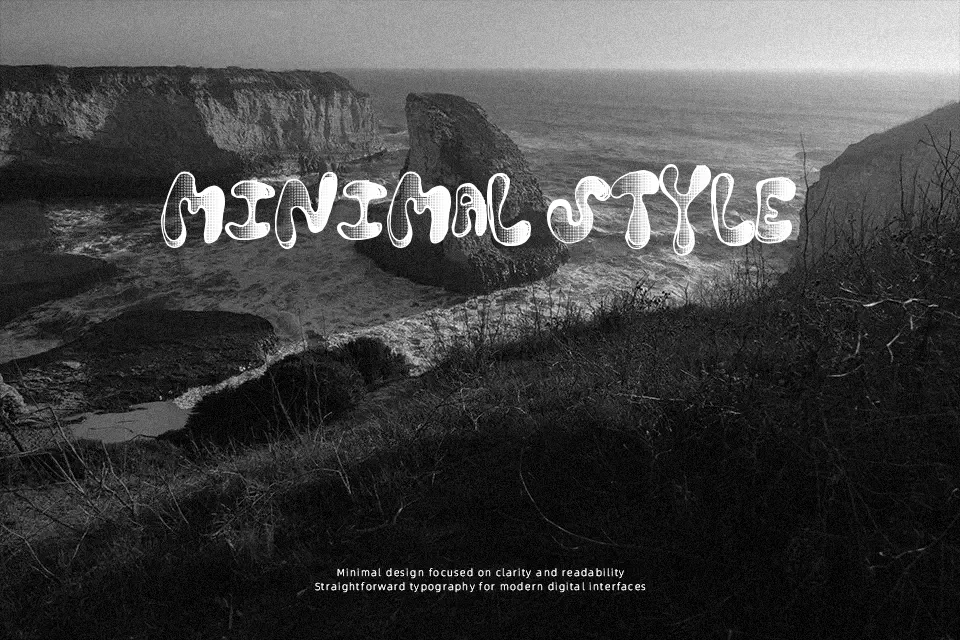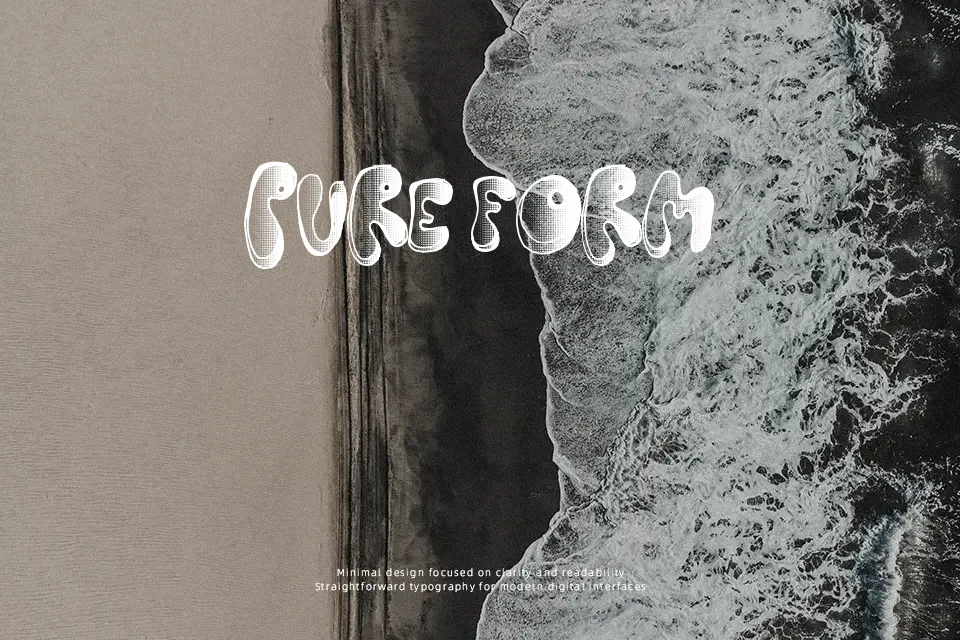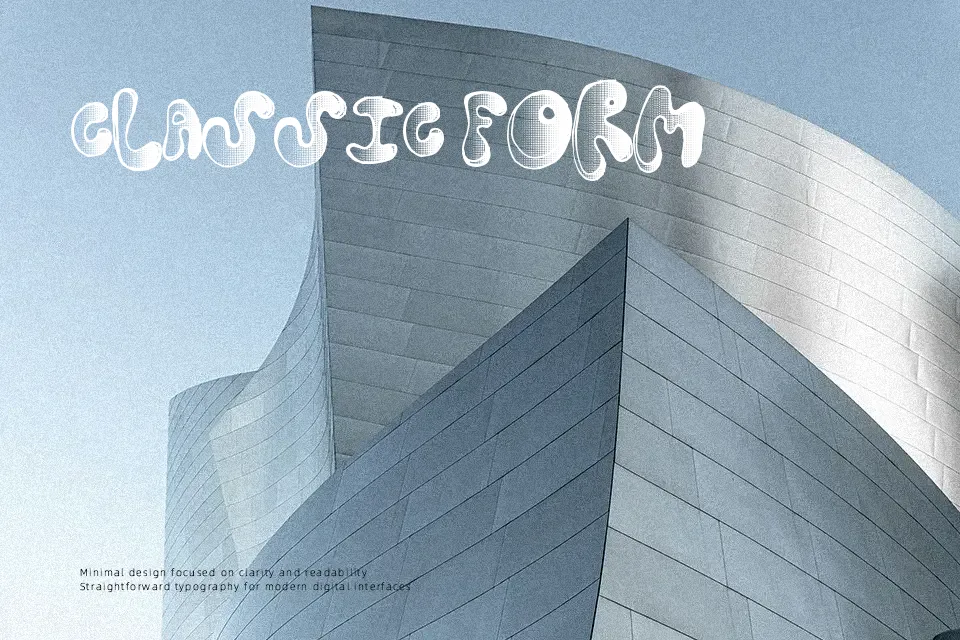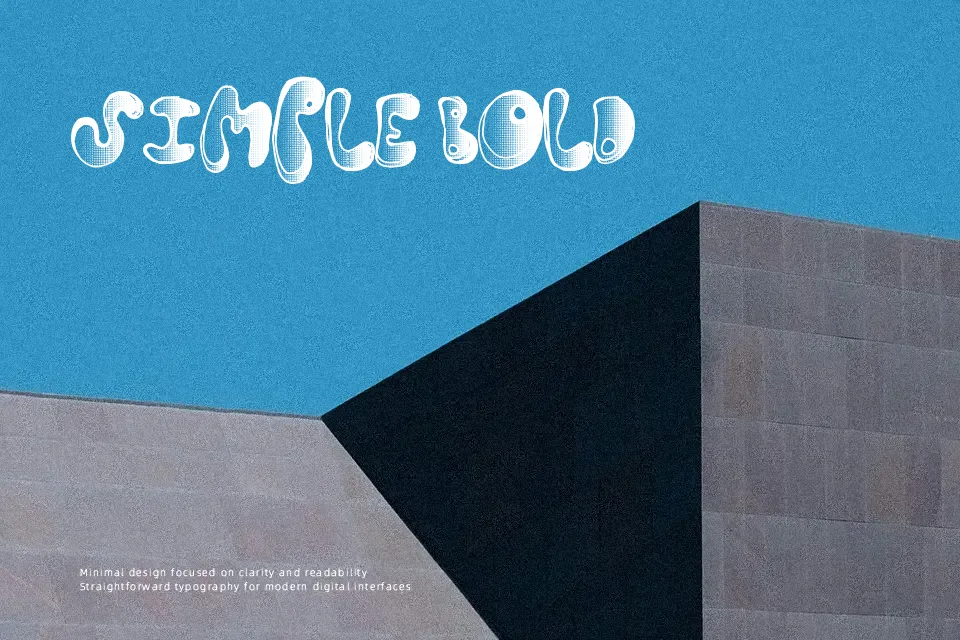
Spring Dance Font
Spring Dance Font presents an animated decorative design defined by sculpted stroke contours, prominent glyph silhouettes, and generous character spacing. Each glyph showcases distinctive geometry that creates an energetic rhythm across short headlines, album artwork, and creative event posters. The consistent stroke weights provide solid visual presence, ensuring that titles stand out against busy graphic backgrounds. However, the intricate silhouette details and wide tracking become less effective in compact layouts, where crowded text can compromise legibility. The letterforms perform best when displayed at substantial sizes, allowing the ornate contours to breathe without crowding adjacent lines of text.
Best For: music festival posters, event merchandise, album covers, display headlines
Not Ideal For: long paragraph text, mobile app interface labels, dense editorial layouts, technical documentation
Perfect for advertising, branding, and headline, with a artistic and decorative style.